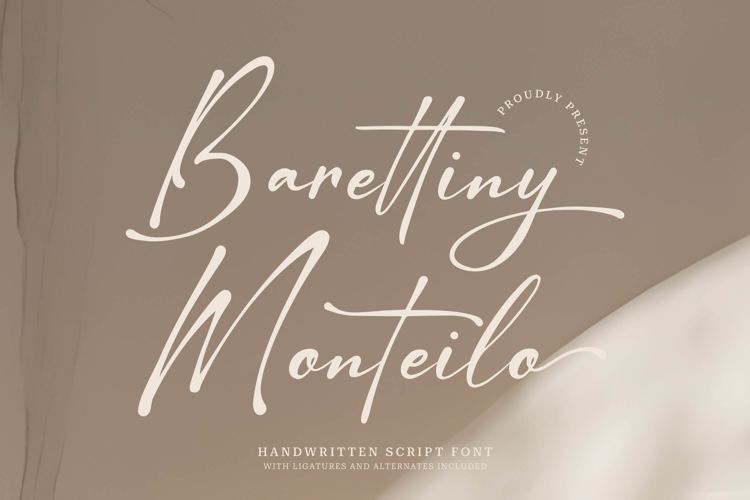
Barettiny Monteilo Font
Barettiny Monteilo | Handwritten Script Font is suitable for any projects such as: logos, branding projects, homeware designs, product packaging, mugs, quotes, posters, shopping bags, t-shirts, book covers, name card, invitation cards, greeting cards, label, photography, watermark, special events, and all your other lovely projects that need a Handwritten script taste.